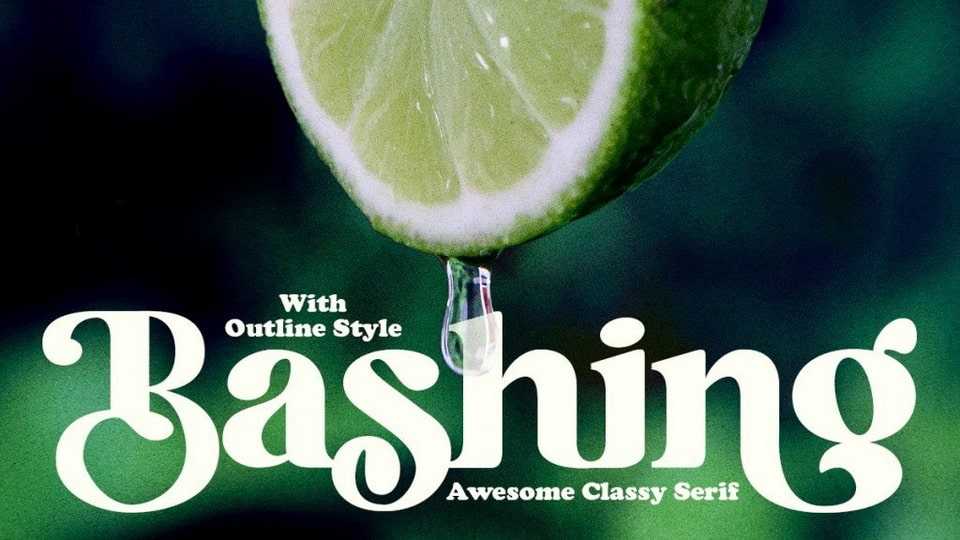
Download Bashing font, an extra bold serif typeface with soft, charming rounded edges and curves. Bashing brings chunky retro typography to the modern era.